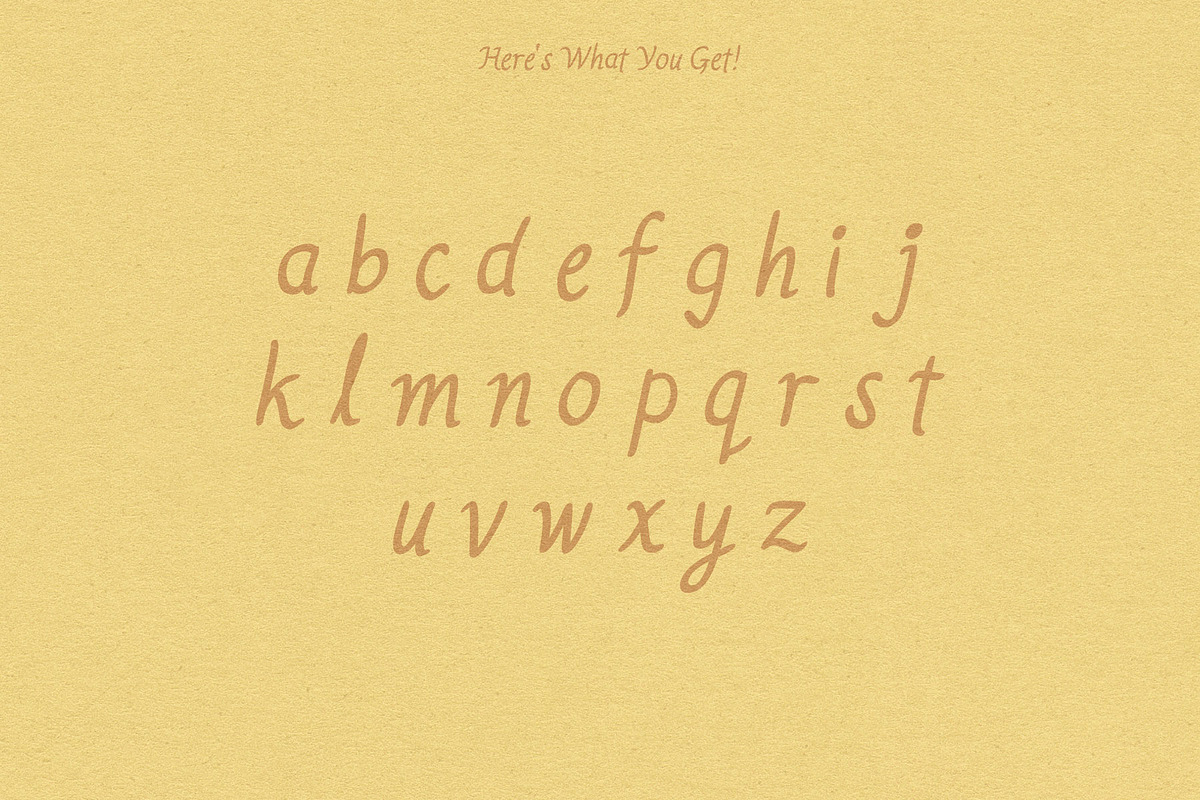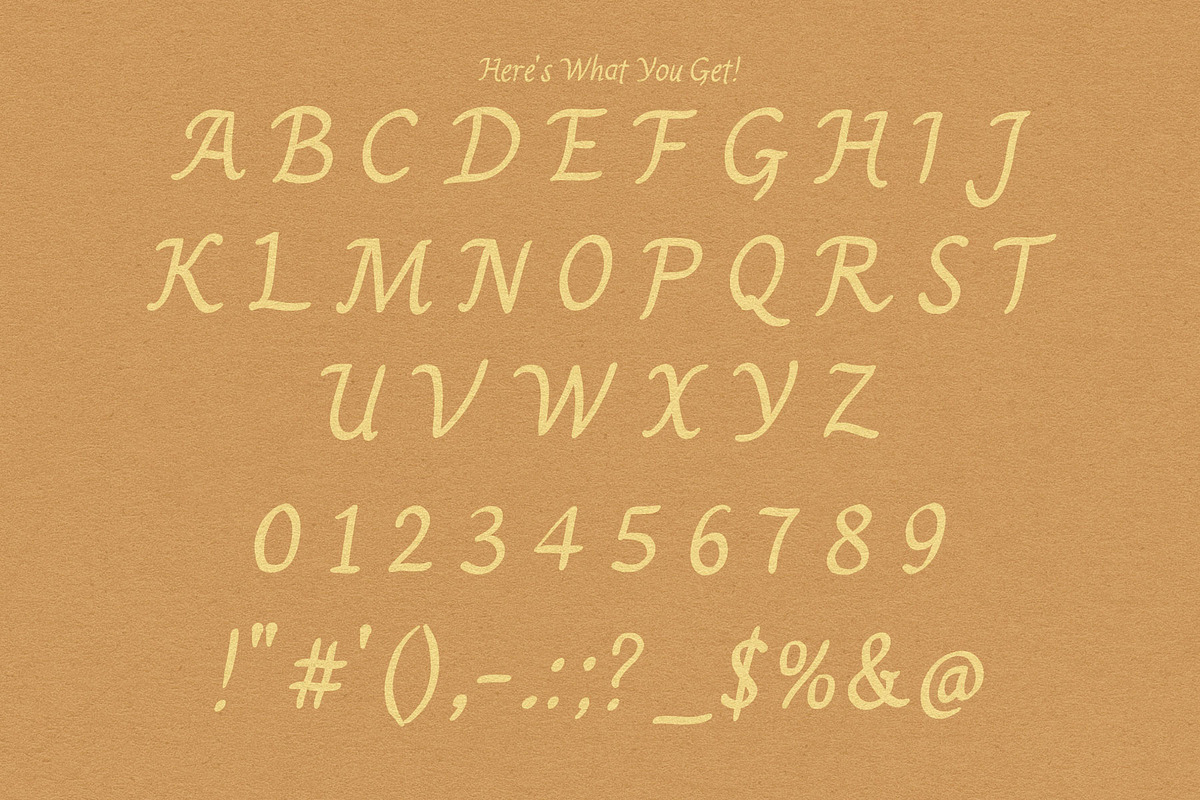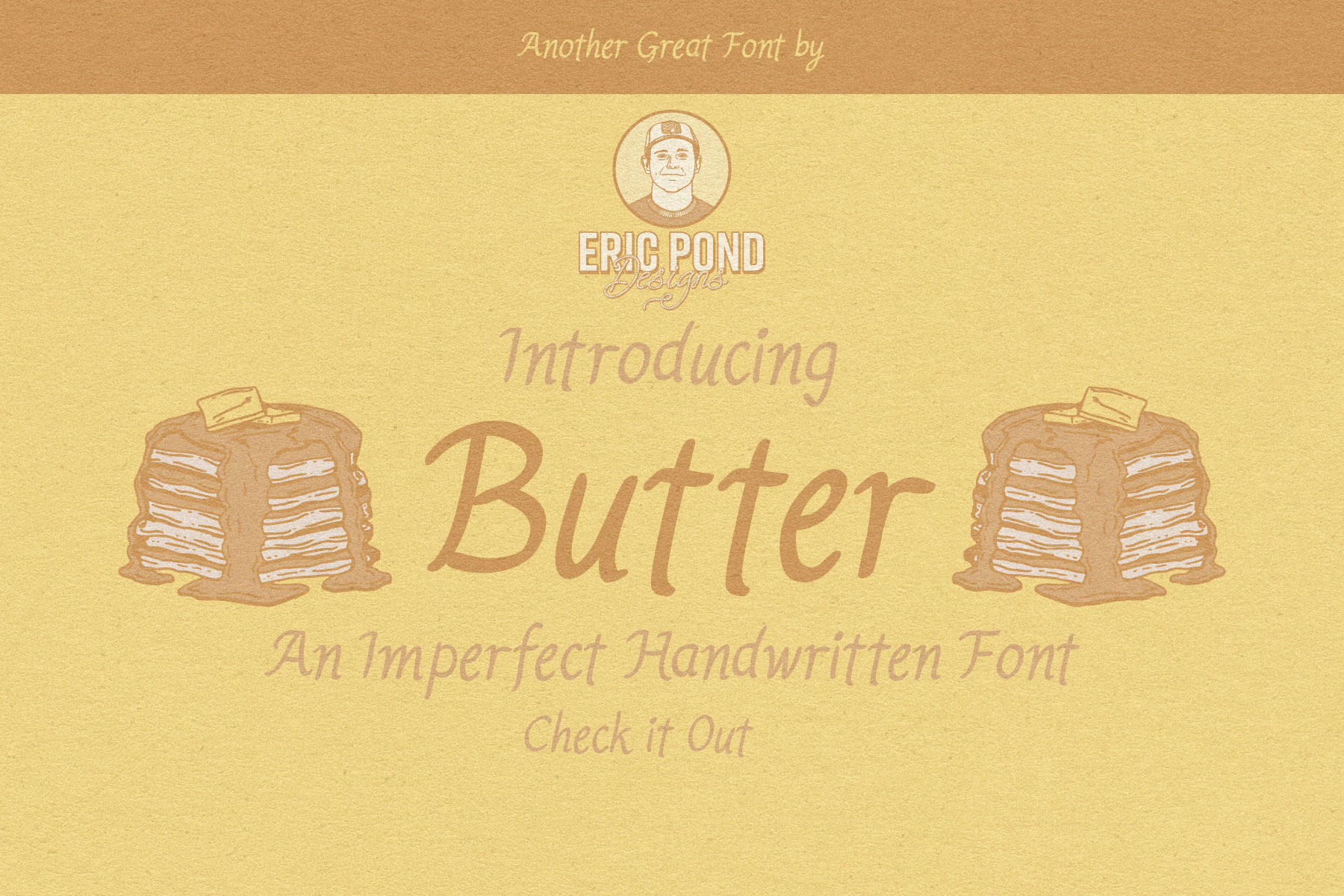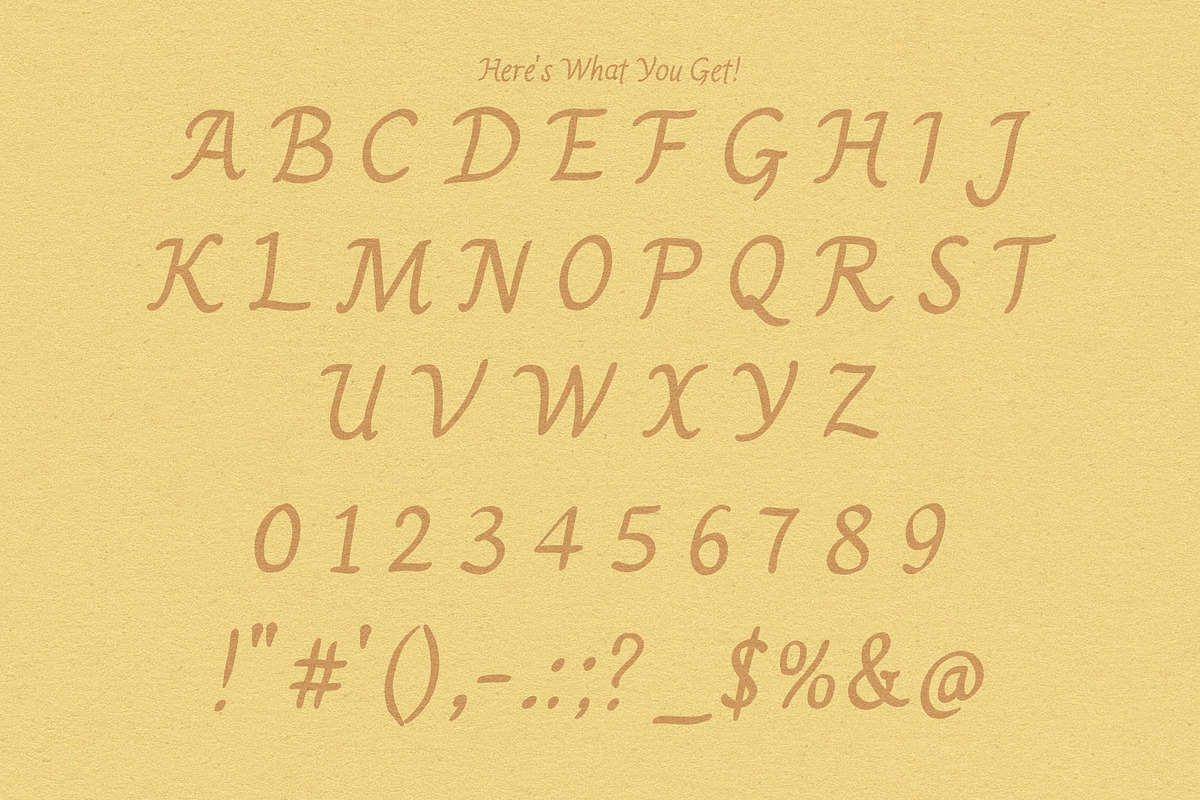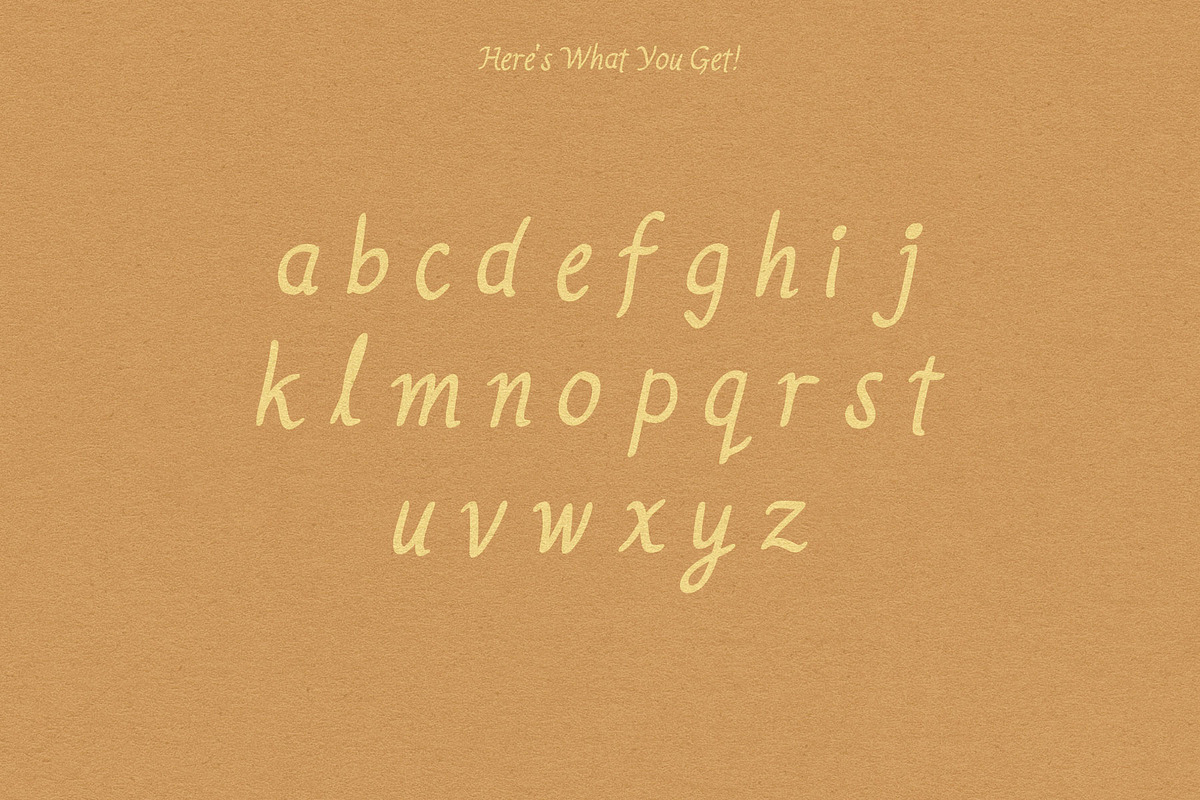
Butter - A Simple, Handwritten Font
Introducing Butter! An Imperfect, Handwritten font by Eric Pond Designs. This font includes uppercase, lowercase, numbers and some punctuation.